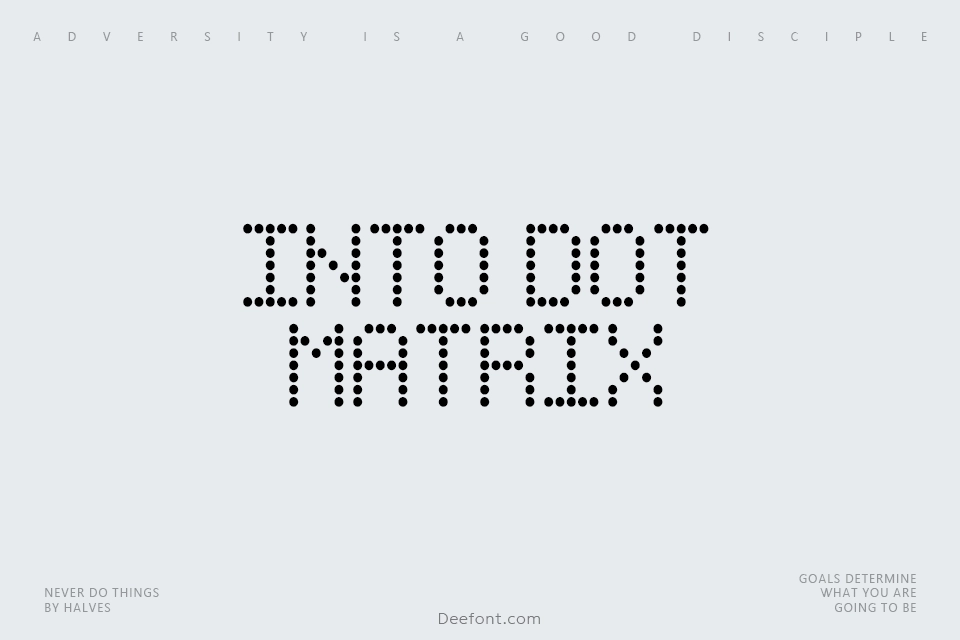
Into Dot Matrix Font
Into Dot Matrix is a distinctive techno and LCD-style display font created using FontStruct. Featuring a retro dot matrix aesthetic, this typeface excels at conveying a classic electronic and digital character. Perfect for creating eye-catching headers, tech-themed designs, and vintage computing visuals. The font's pixelated structure gives projects an authentic 1980s-1990s computer aesthetic, making it ideal for both nostalgic design work and contemporary projects seeking retro charm.